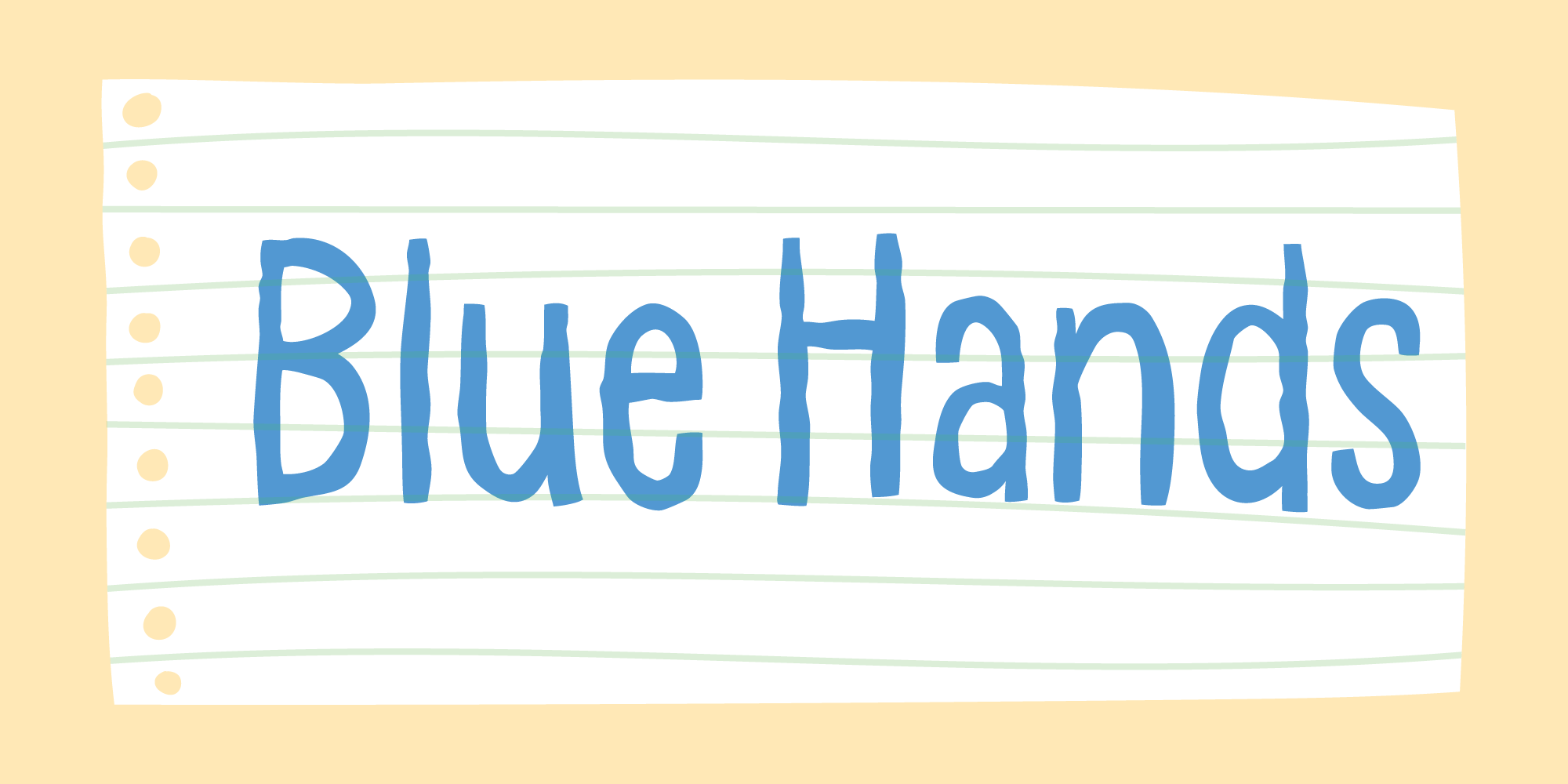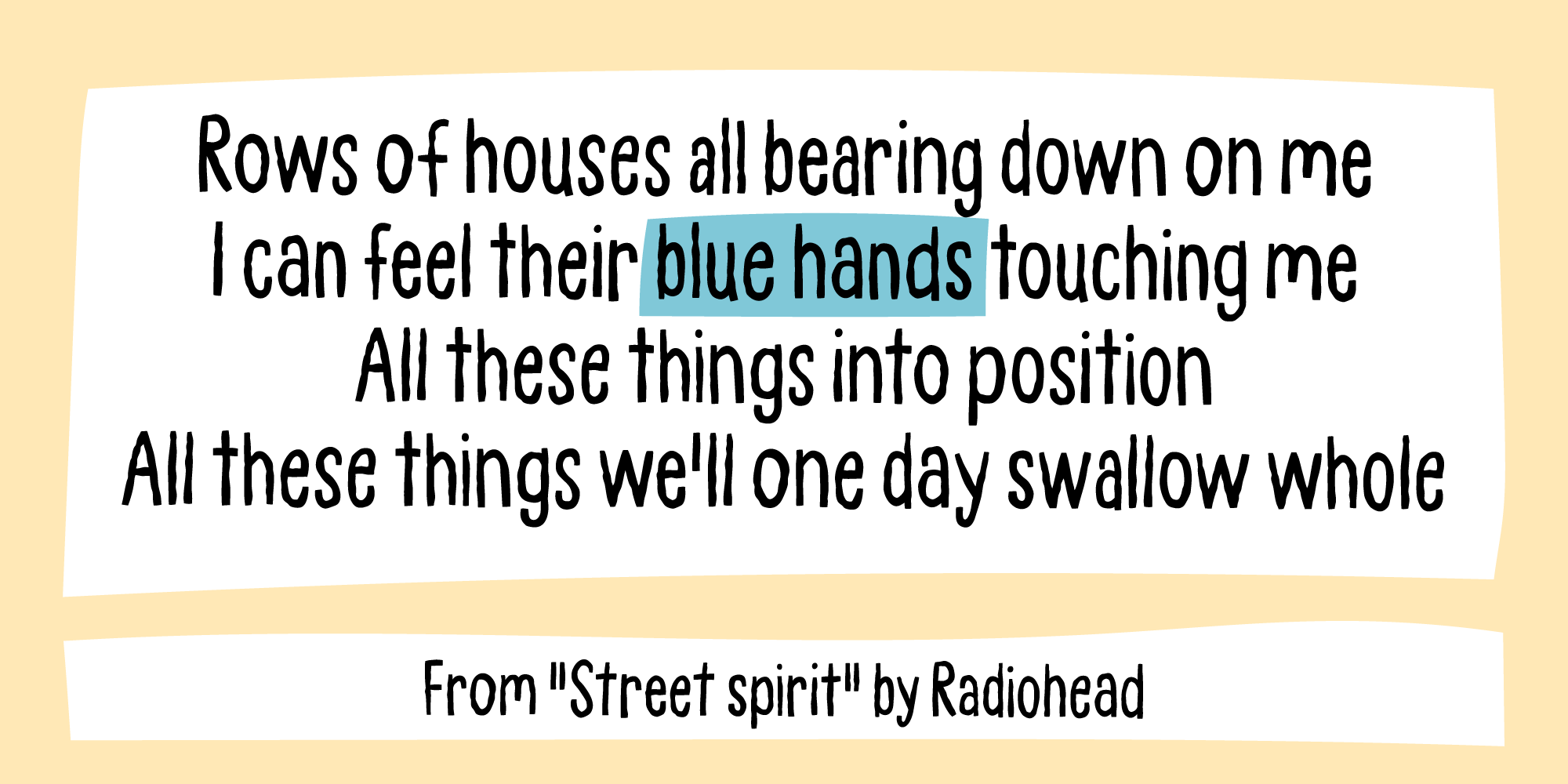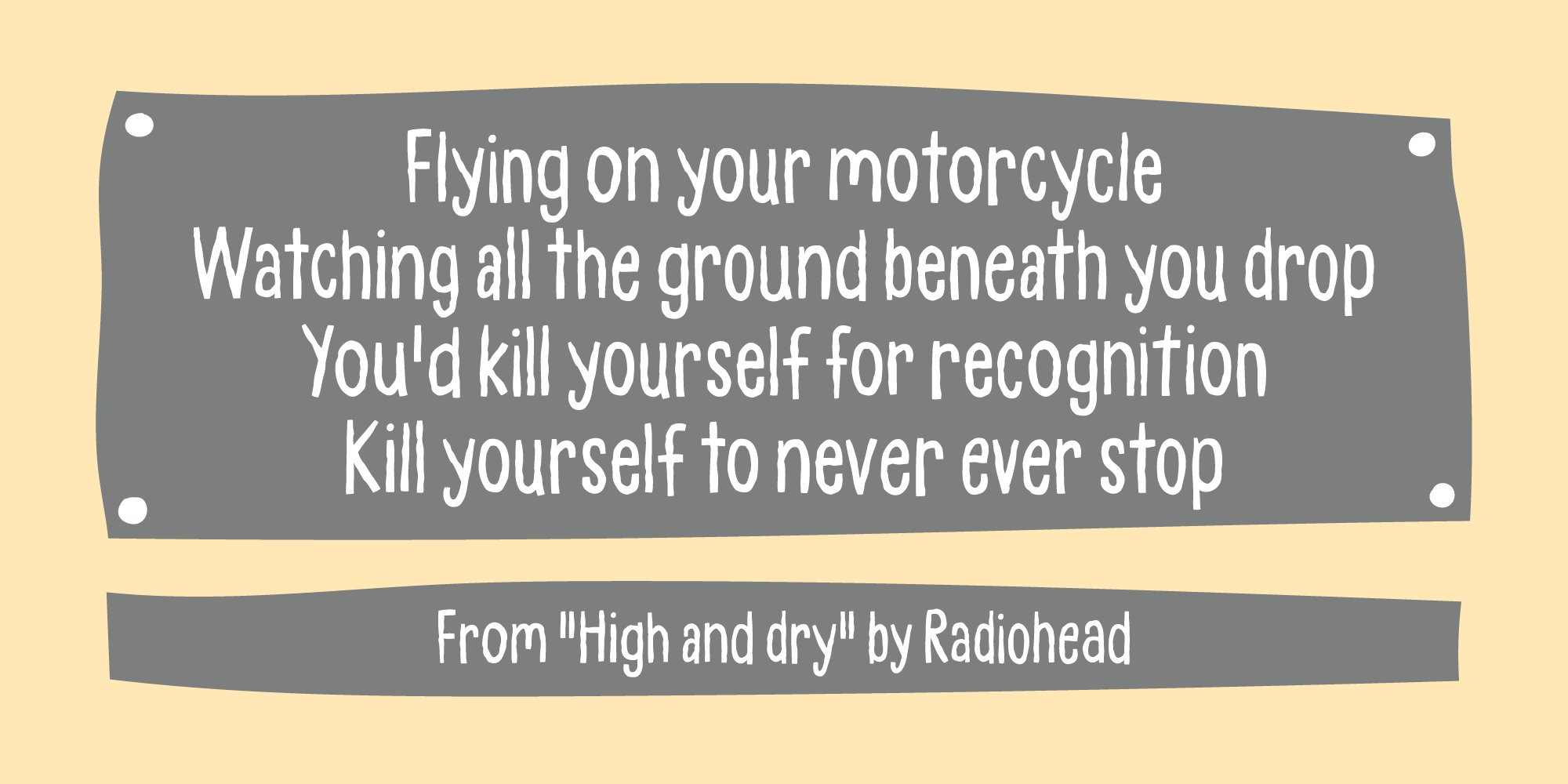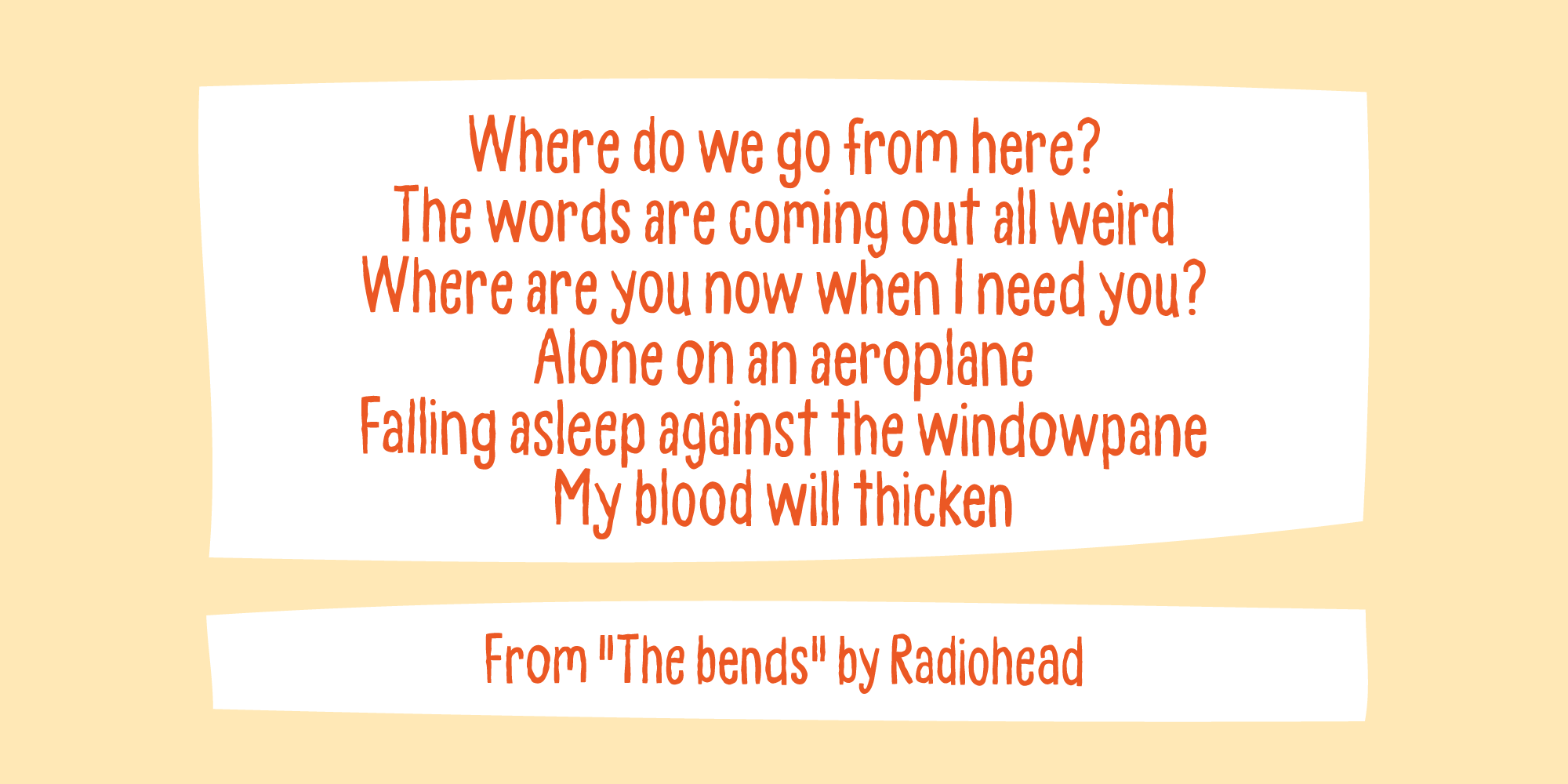
Blue Hands
Blue Hands was created while listening to "The Bends" by Radiohead. It was a trip down memory lane, and the creative process just happened because "The Bends" is an album that has followed me for the last 30 years - and will most likely follow me the next 30! :) The letters are handmade with an uneven stroke and a somewhat roughness. Organic, yet super legible - and I have added 4 different versions of each lowercase letter, and they automatically cycles as you type!